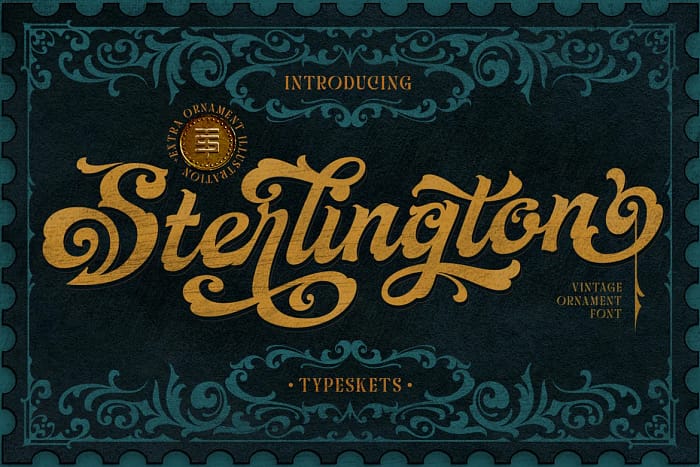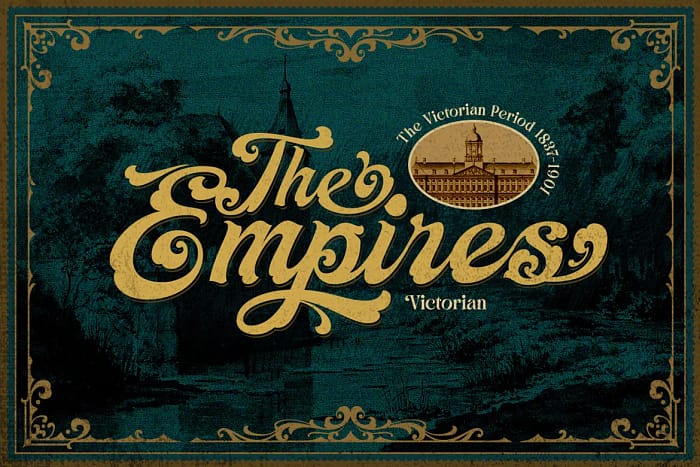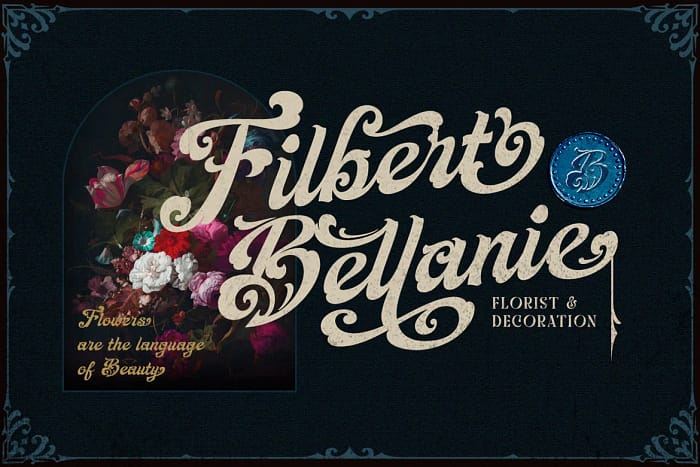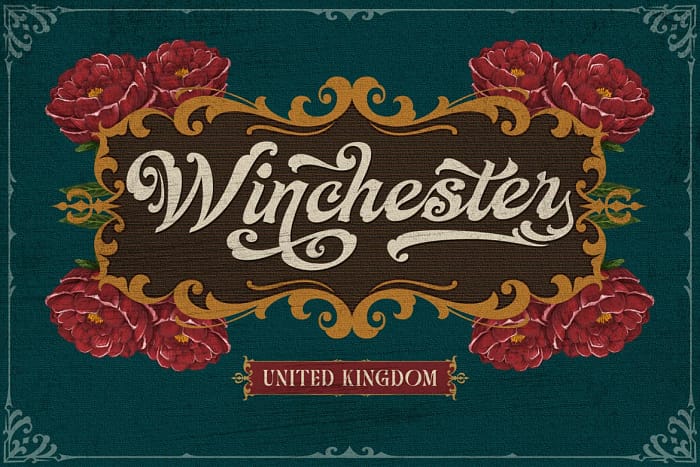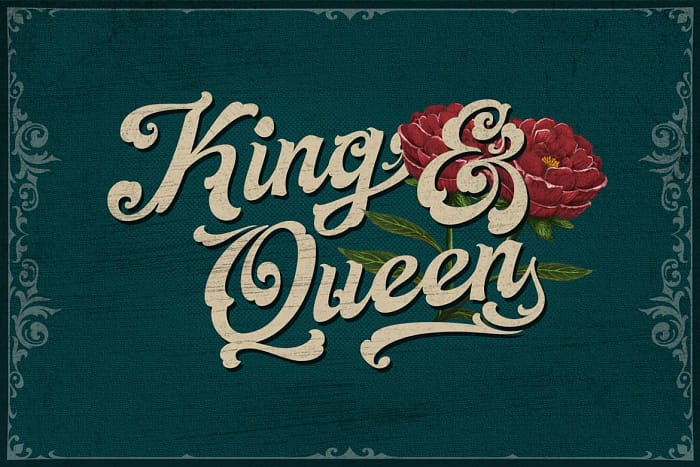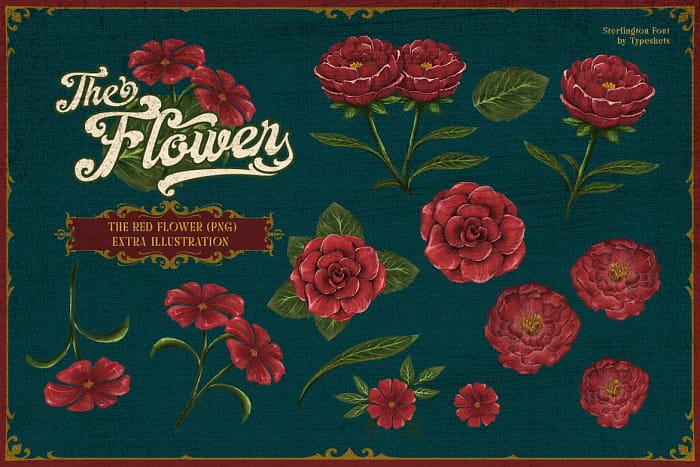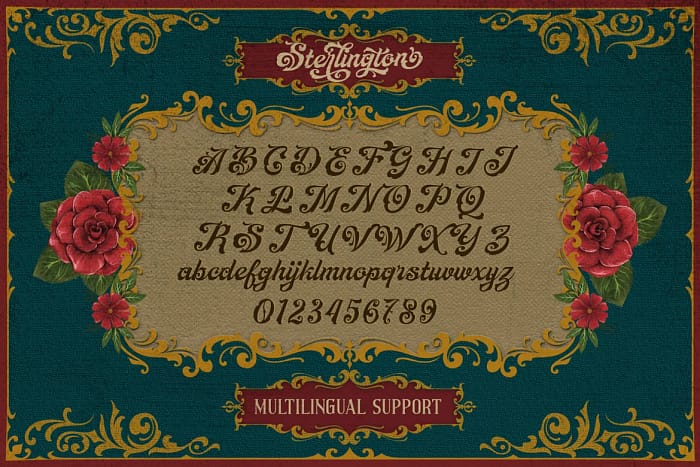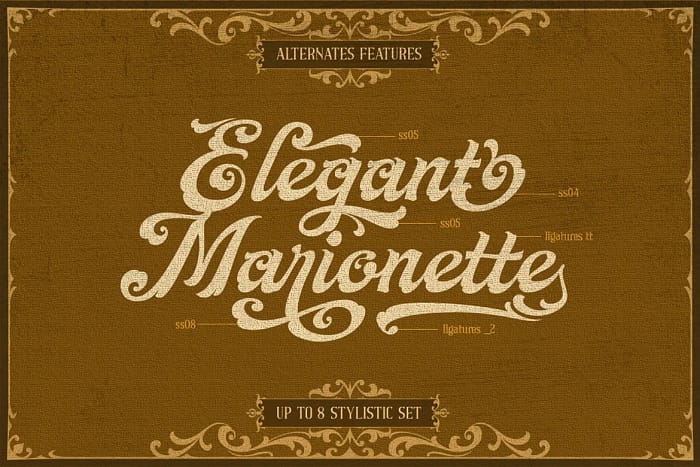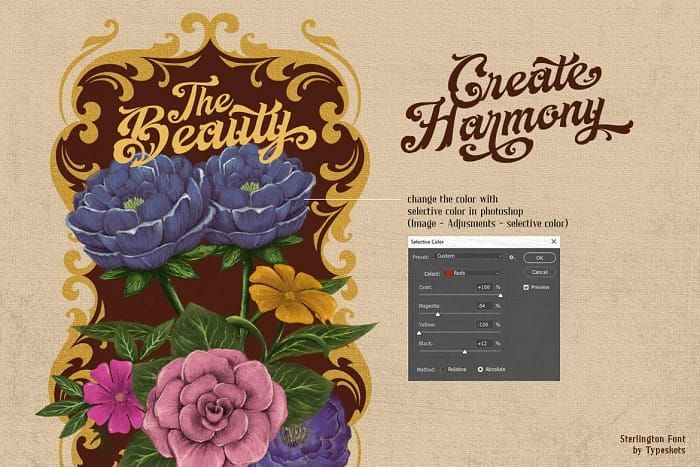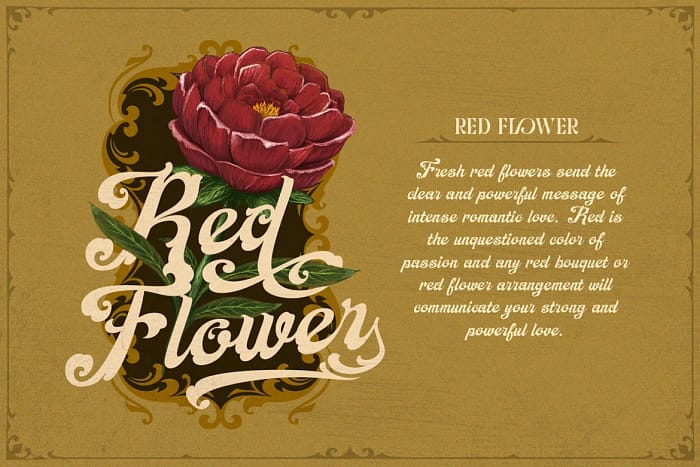
sterlington is an ornamental font, with a hint of Victorian style that can be seen in every form of the letter, this font is also accompanied by additional free ornaments and floral illustrations that you might use to add a more vintage impression and feel of royal romance, very suitable for design such as logotype, headline, label design, coverbook, business card, and many more
- Ornament
- Red Flower Illustration